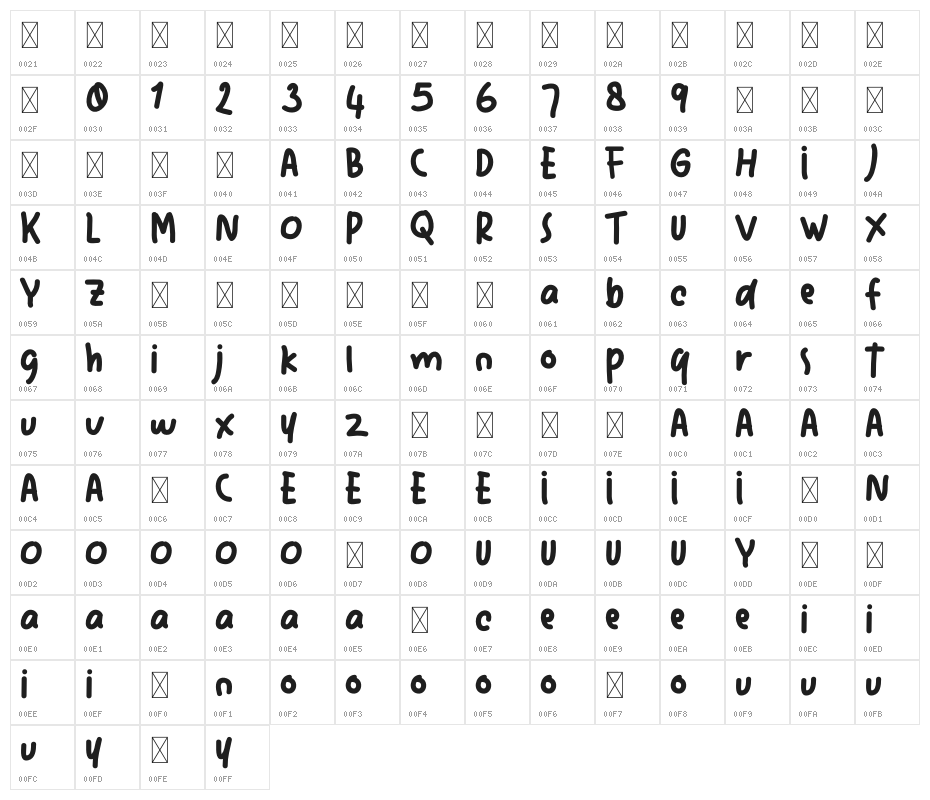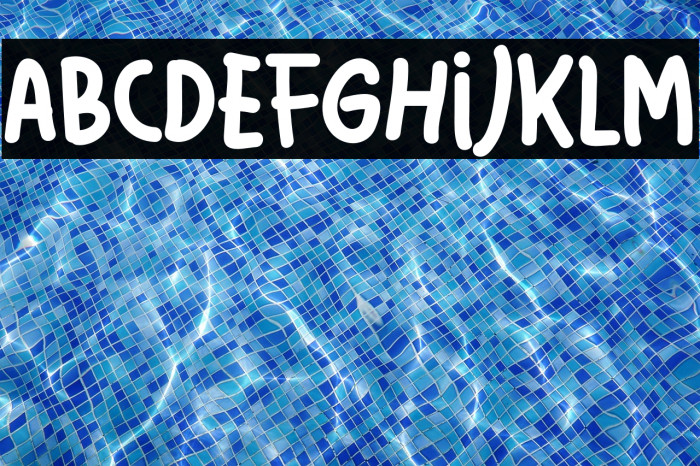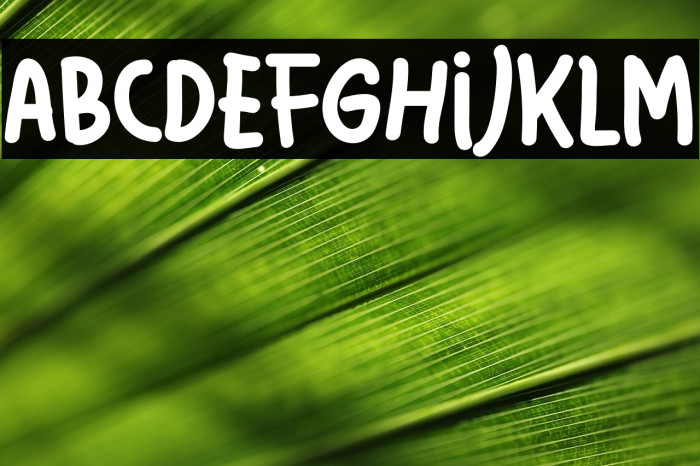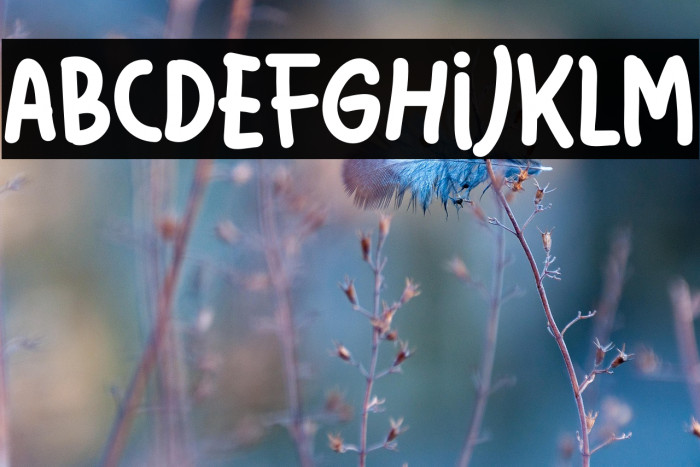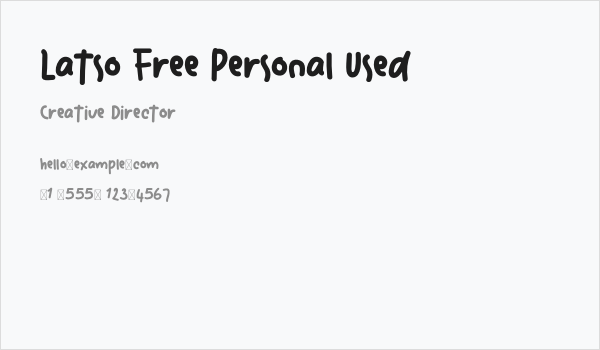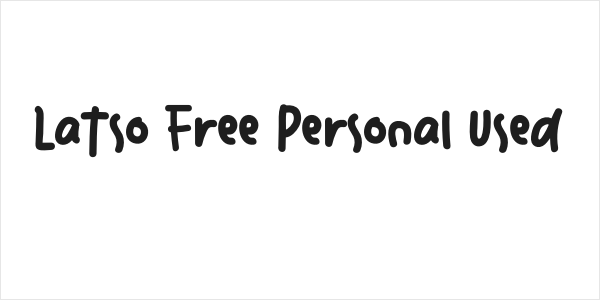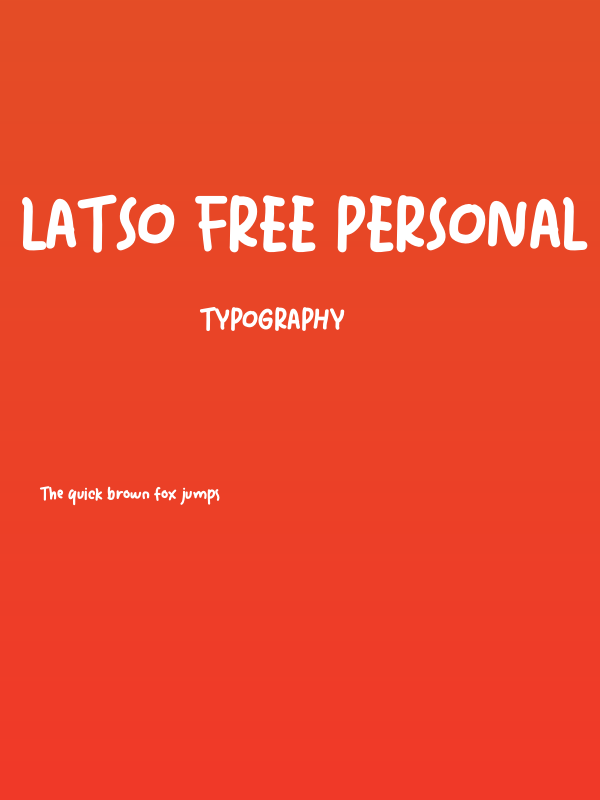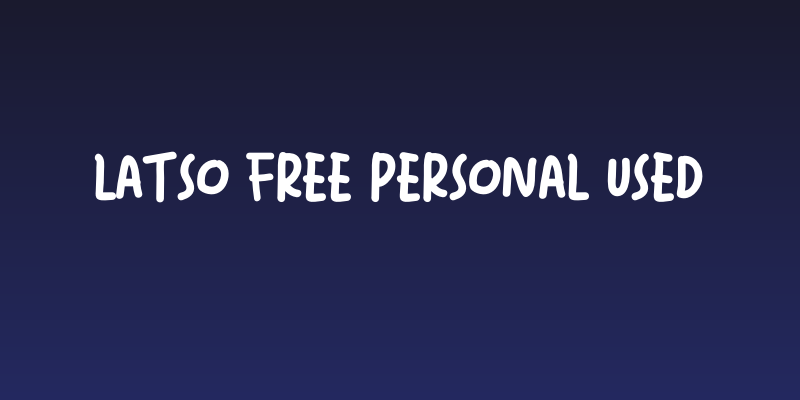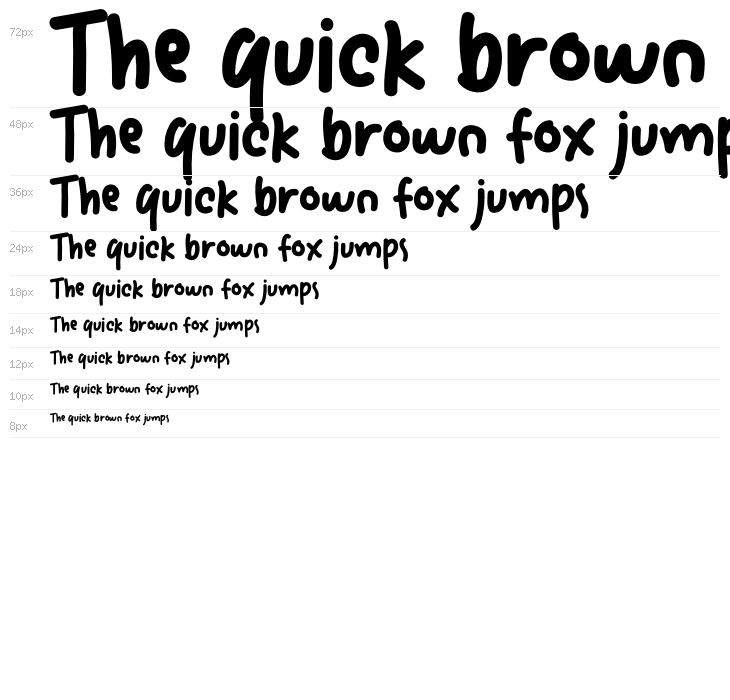
Latso Free Personal Used Font
Latso Free Personal Used Description
This font features a playful and casual handwritten style, characterized by its bold and rounded letterforms. The uppercase and lowercase letters maintain a consistent flow, with slightly irregular shapes that add to its charm. The numbers are equally bold, maintaining the same playful aesthetic. The font's overall appearance is friendly and approachable, making it suitable for projects that require a personal touch. The lack of sharp edges and the uniform stroke width contribute to its informal and relaxed vibe.
| Use Case | Logos, Headlines, Informal Invitations |
| Proposed Projects | Ideal for greeting cards, children's books, playful branding, and social media graphics. |